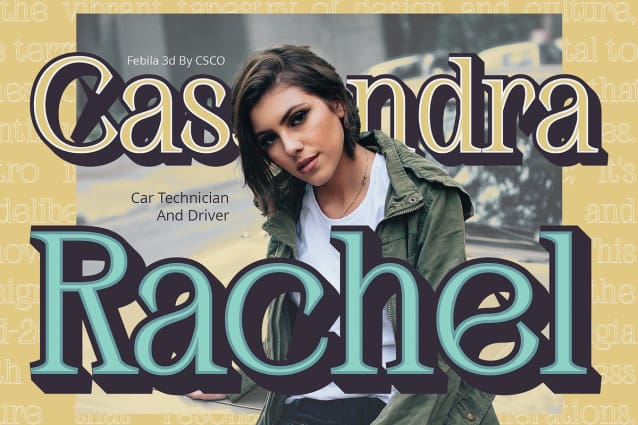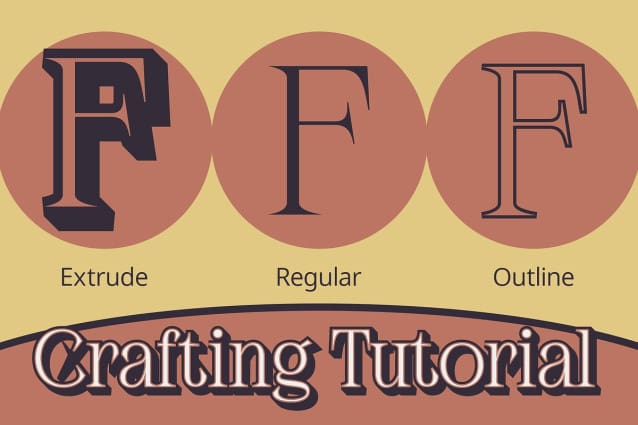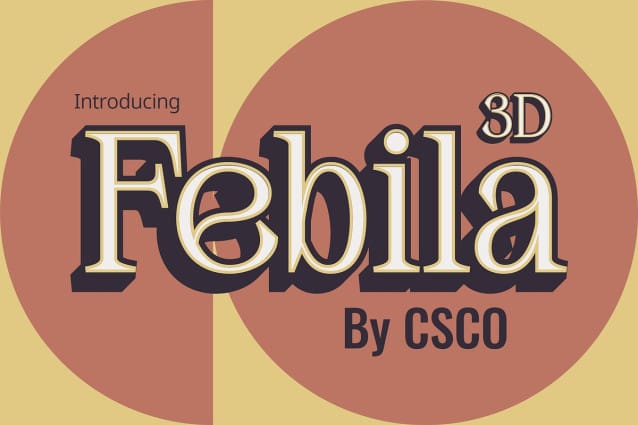
Febila 3D Font
Febila 3D Font, a serif font exuding an air of sophistication, invites you to experience elegance in a new dimension. Visual Depth and Dimension With its captivating 3D effect, Febila transcends traditional serifs. Each stroke carries a visual depth that adds a layer of luxury to your projects.
Elegance in Every Curve Febila 3D marries classic serif elements with a contemporary twist. The elegant curves of each letter are accentuated by the subtle 3D nuances, creating a harmonious visual experience.
Versatile Elegance for Any Occasion Whether gracing invitations or enhancing editorial layouts, Febila 3D adapts seamlessly. Its versatility makes it a timeless choice for a spectrum of design needs.
Conclusion: Redefining Elegance Febila 3D isn’t just a font; it’s a visual masterpiece that redefines elegance. Elevate your designs with this font, where every curve tells a story of timeless sophistication in three dimensions.